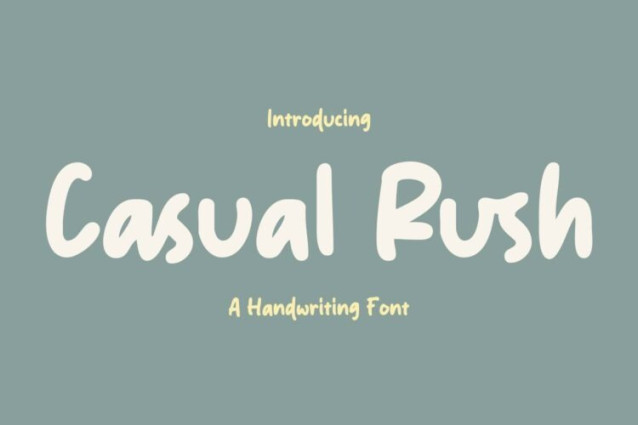
Casual Rush Font
Casual Rush Font is a simple and friendly handwritten font. Its natural and unique style makes it incredibly fitting to a large pool of designs. The only limit is your imagination!